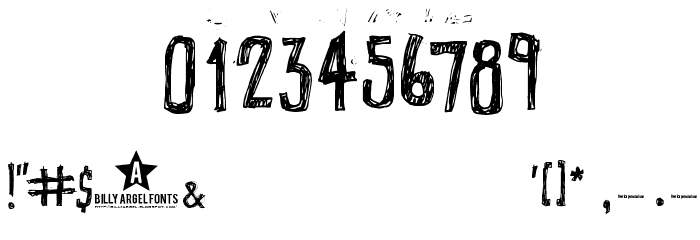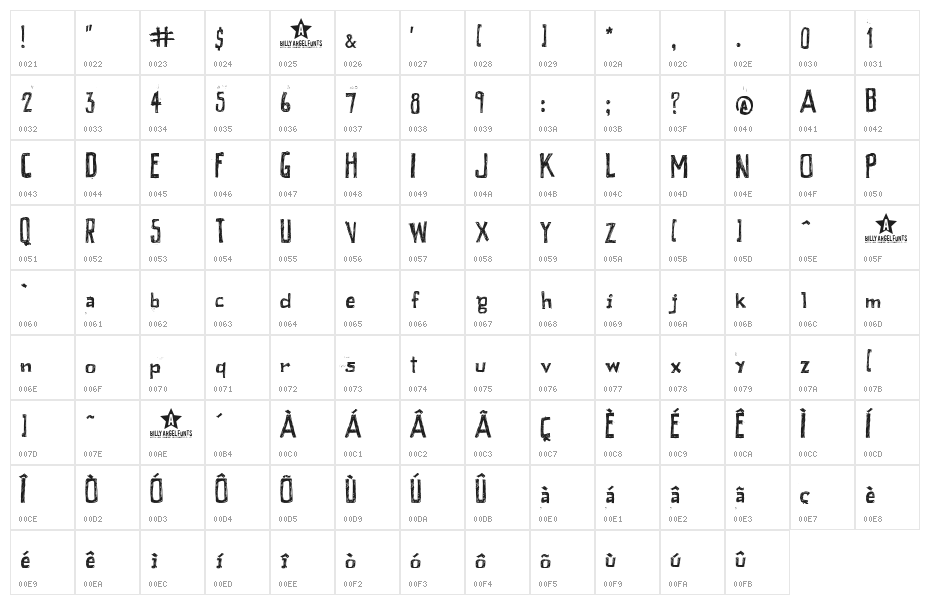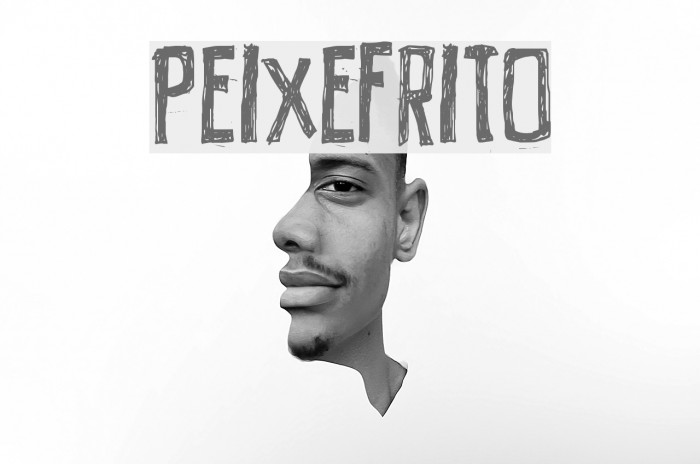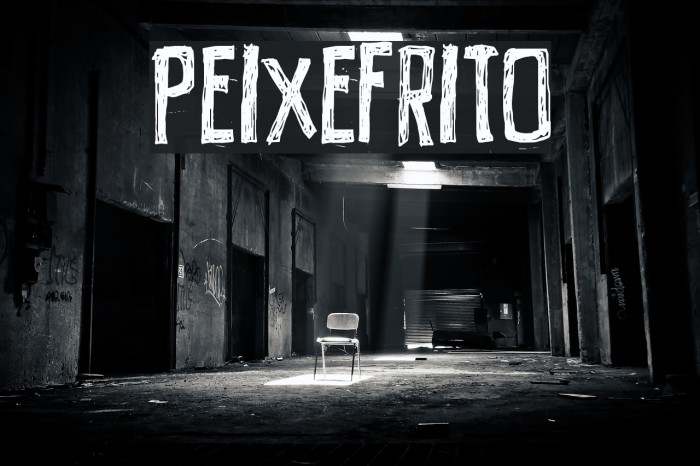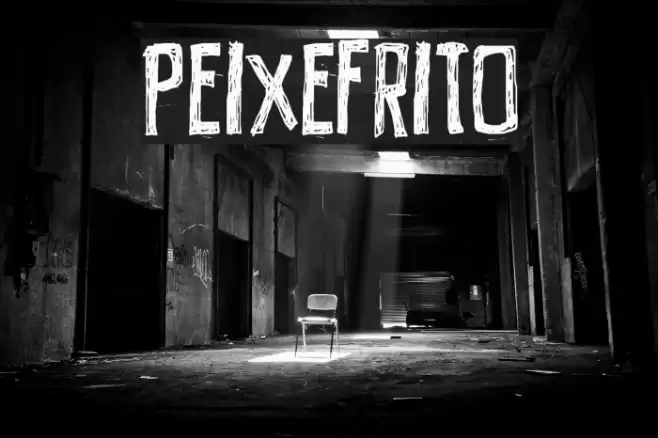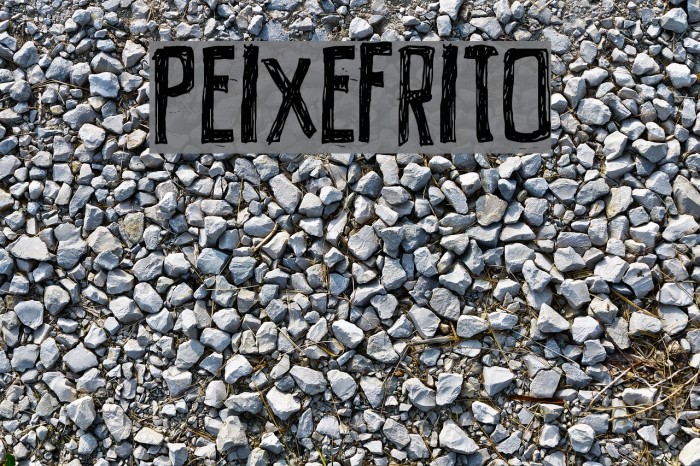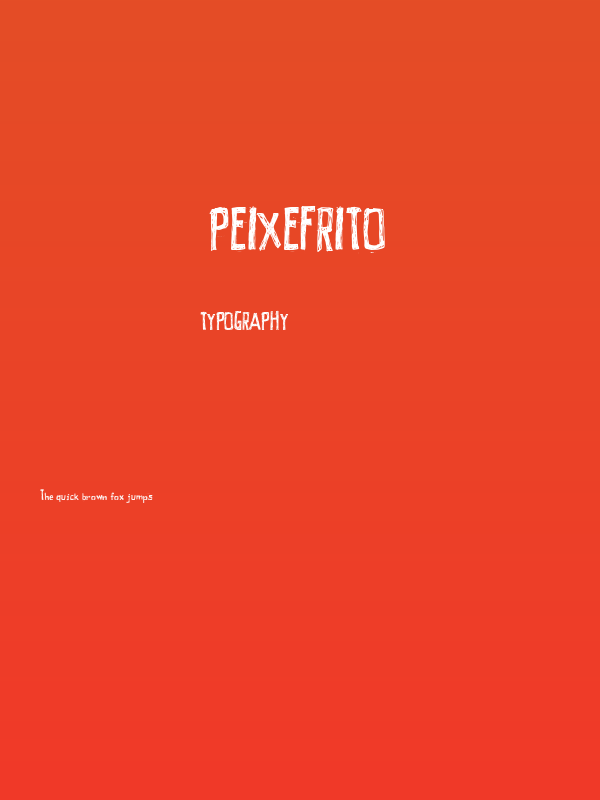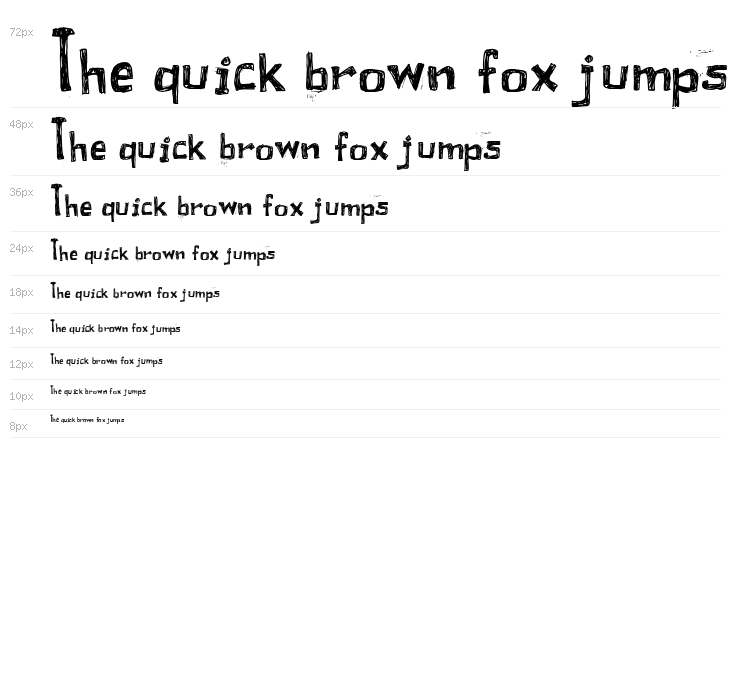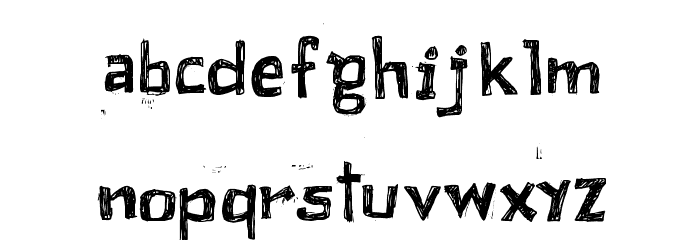
PEIXEFRITO Font
PEIXEFRITO Description
This font features a hand-drawn, textured style that gives it a rustic and artistic appearance. The uppercase and lowercase letters have a slightly irregular and sketchy quality, adding a sense of movement and personality. The numbers and special characters maintain this textured look, ensuring consistency across all glyphs. The font's design is reminiscent of hand-painted signs or chalkboard art, making it ideal for projects that require a handcrafted or vintage aesthetic. Its unique style is both eye-catching and versatile, suitable for a variety of creative applications.
| Use Case | Logos, Posters, Packaging |
| Proposed Projects | Ideal for posters, branding, packaging, and any design requiring a handcrafted or vintage look. |